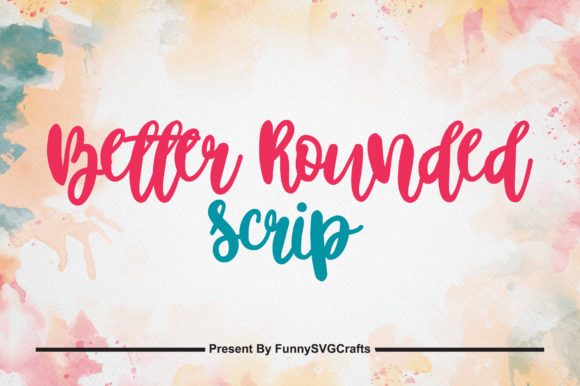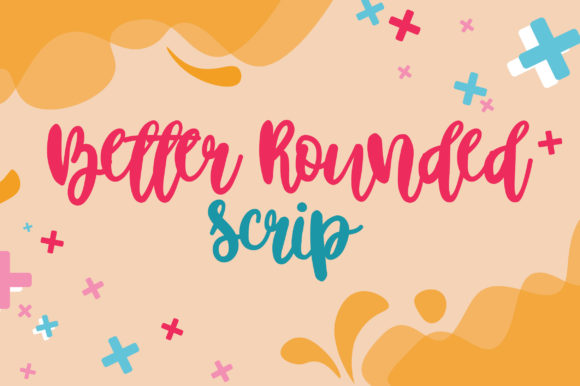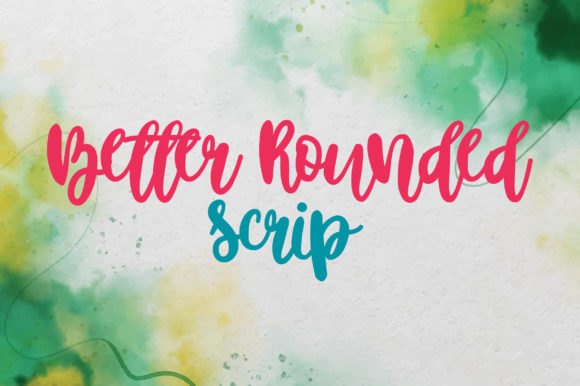
Better Rounded Scrip Font
About Better Rounded Scrip Font
Introducing “Better Rounded Script,” a playful and casual handwritten font that brings a delightful and approachable touch to your designs. This font is a versatile asset for your fonts’ library, with the potential to elevate and enhance any creation, regardless of the topic or context.
The charm of “Better Rounded Script” lies in its playful and casual nature, making it a perfect choice for a wide range of design projects. Whether you’re working on branding materials, social media graphics, invitations, or any creative endeavor, this font adds a lively and friendly vibe to your text.
Imagine using “Better Rounded Script” to infuse your social media posts with a playful and approachable tone, making your content more engaging for your audience. Picture it enhancing the branding of your products or services, giving them a warm and inviting feel. Envision the font gracing invitations, creating a lighthearted and cheerful atmosphere for your events.
Incorporate “Better Rounded Script” into your creative toolkit to take your designs to the next level. Its playful and casual style makes it a valuable resource for adding a touch of personality to your projects. Download this lovely freebie and let “Better Rounded Script” be the charming companion to your creative endeavors!